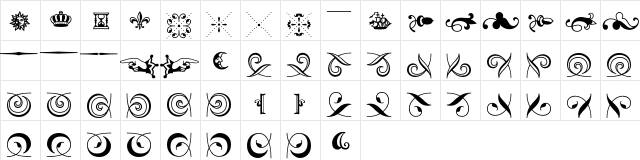
HoeflerText Fleurons
| Style | Fleurons |
Design Context for HoeflerText Typeface
HoeflerText takes a measured approach to typography — its balanced proportions and neutral character make it a reliable workhorse for both digital and print work.